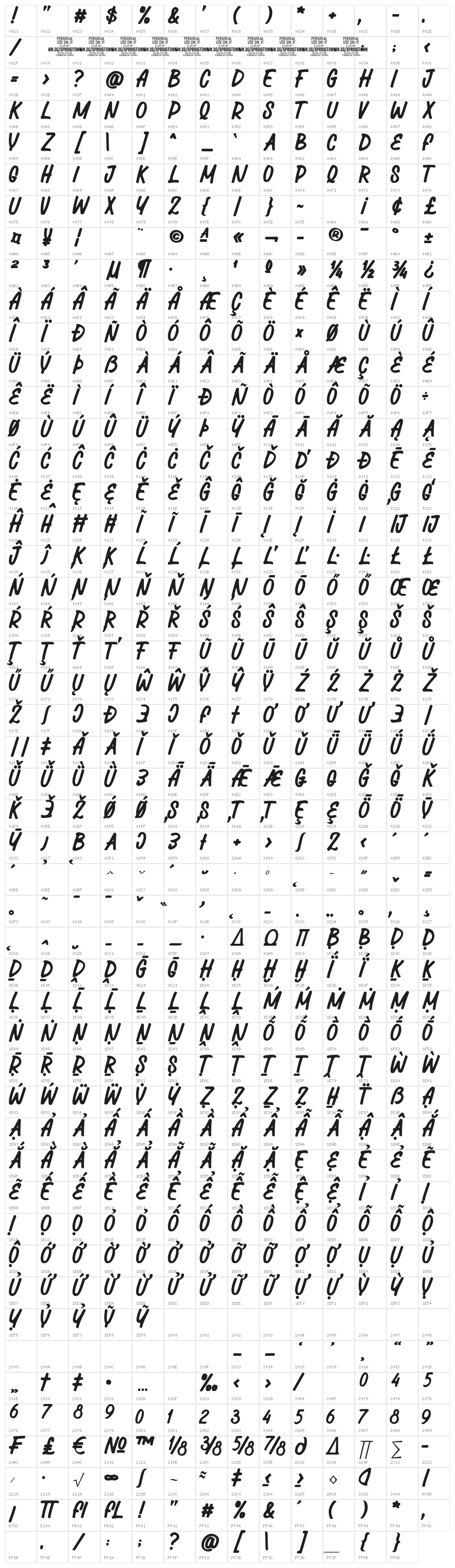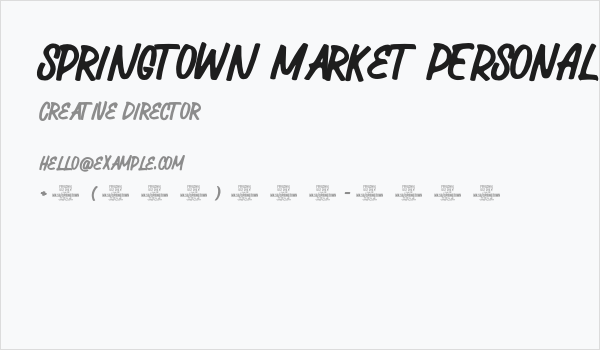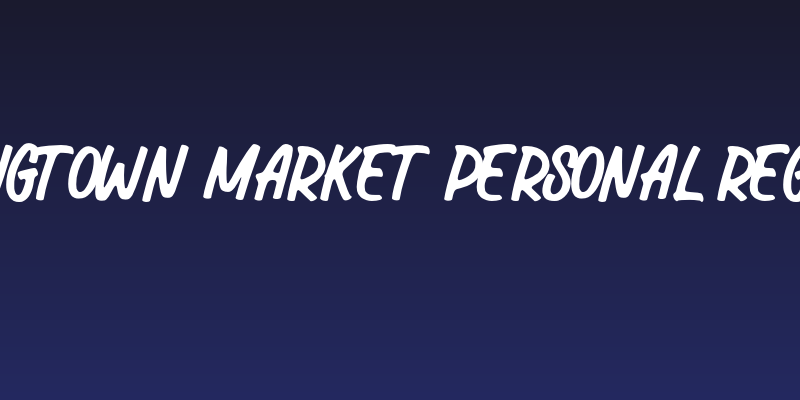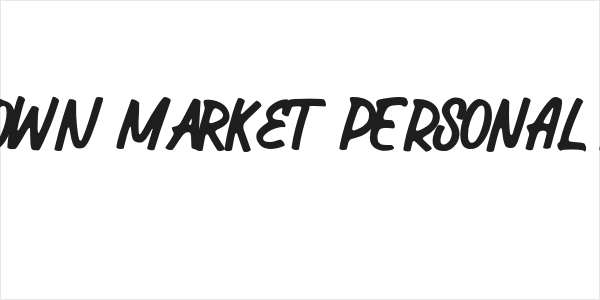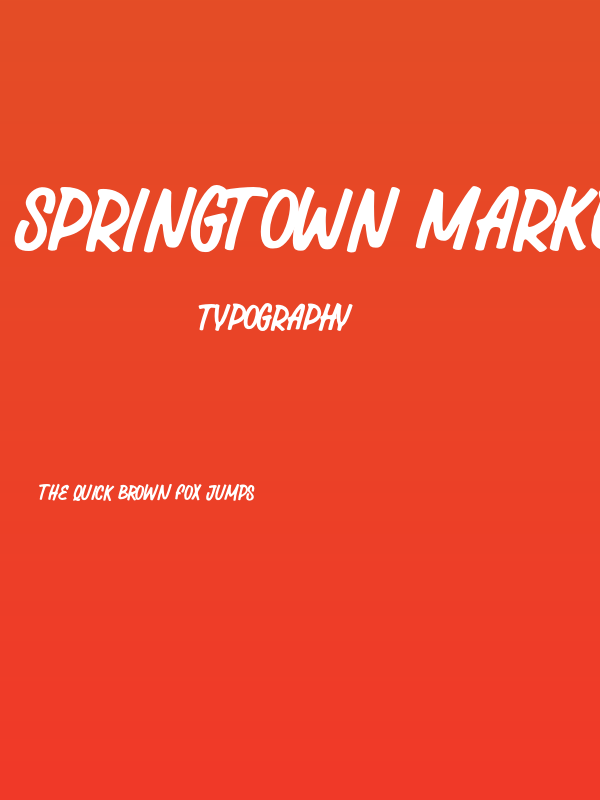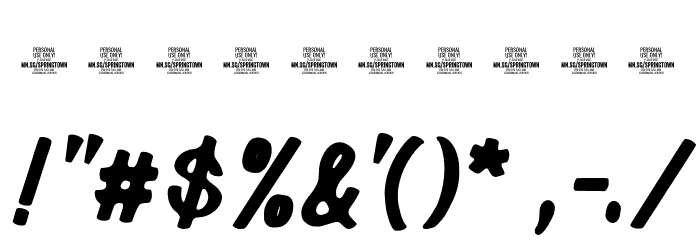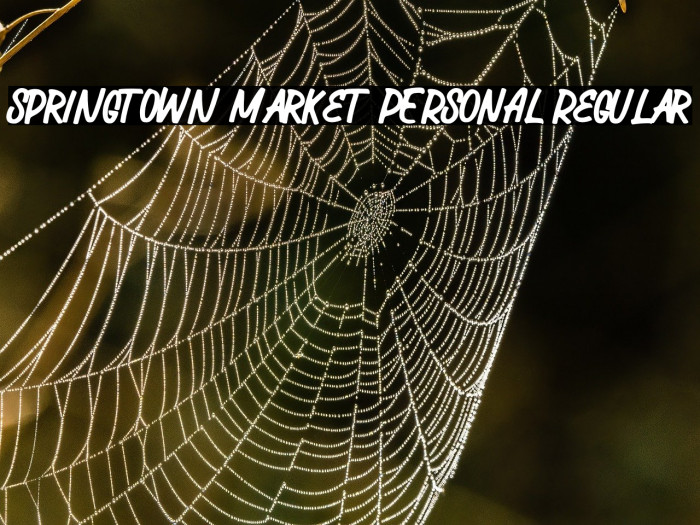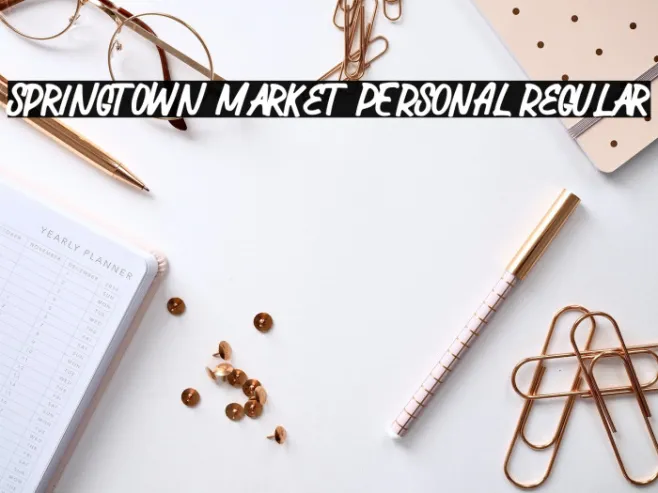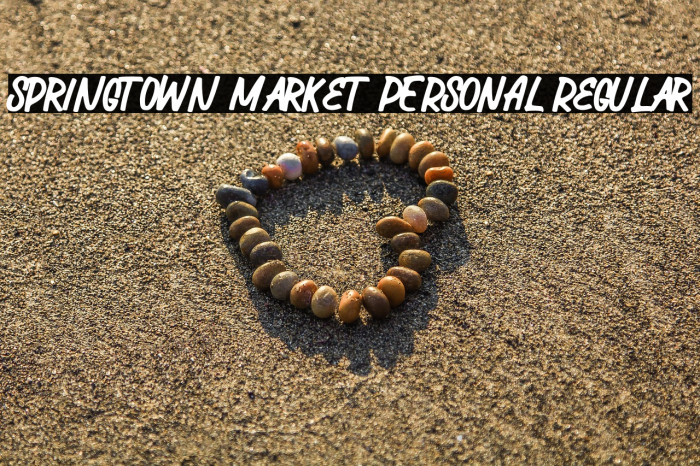
Springtown Market PERSONAL Regular Font
Springtown Market PERSONAL Regular Description
This font features a bold, energetic script style with a hand-drawn appearance. The uppercase letters are dynamic and slightly slanted, giving a sense of movement and fluidity. The lowercase letters maintain the same lively character, with smooth curves and consistent stroke widths. The numbers and special characters follow the same design principles, ensuring a cohesive look across all elements. The overall style is playful yet assertive, making it suitable for projects that require a personal touch with a strong visual impact.
| Proposed Projects | Ideal for branding, packaging, posters, and social media graphics that require a personal and dynamic touch. |